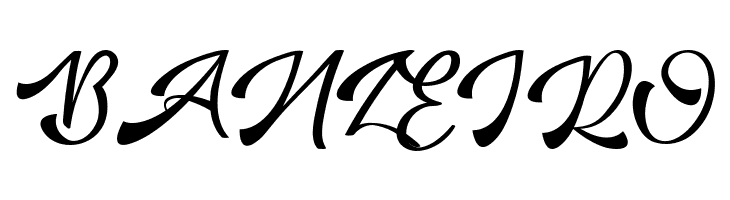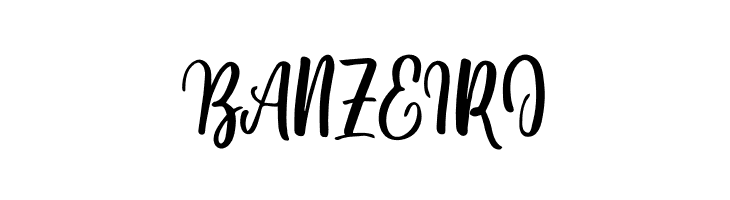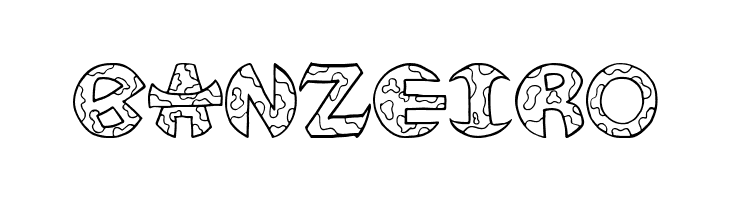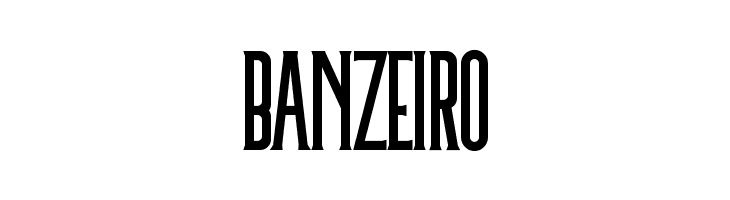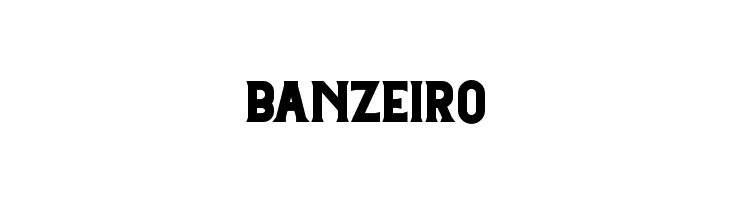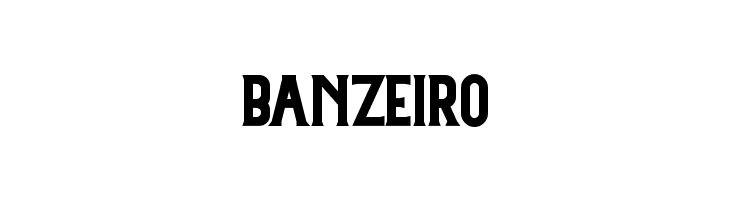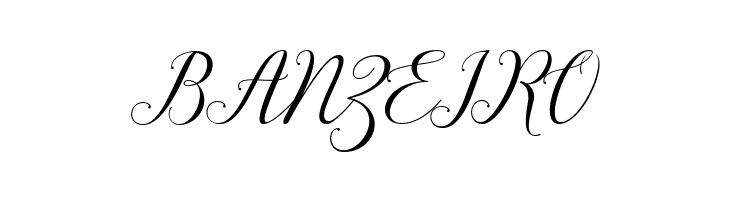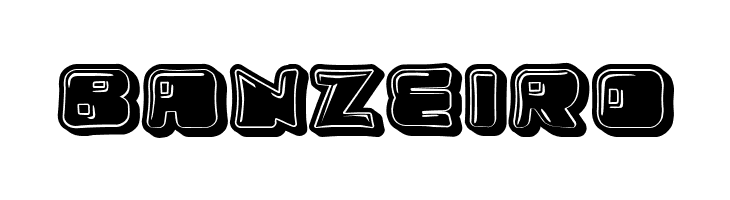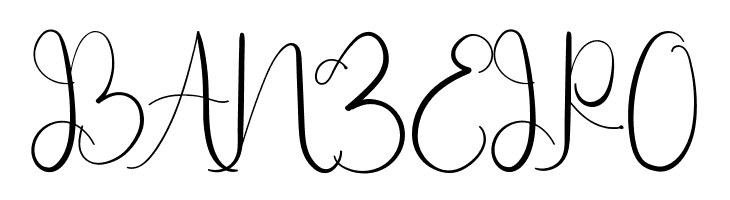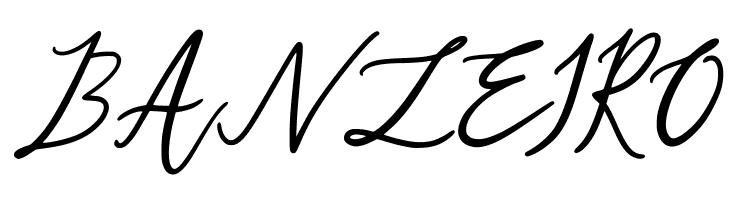
A dynamic handwritten font with fluid strokes and expressive style.
Bold and dynamic font with strong, impactful characters.
A tall, narrow, and bold font with a modern, sleek design.
A bold, thick-stroked font ideal for impactful headlines.
A lively, flowing script font with elegant curves and a handwritten style.
A bold, geometric font with a modern and assertive style.
A distressed, grungy font with a textured, artistic style.
The image lacks a valid font, displaying decorative elements instead.
A dripping, gothic-style font with a bold, artistic flair.
A bold, three-dimensional font with a block-like, embossed appearance.
A lively, cursive font with fluid strokes and a handwritten feel.
A bold, playful font with abstract, patterned interiors and thick outlines.
A bold, geometric font with strong, block-like characters.
A bold, brush-style font with a dynamic, hand-drawn aesthetic.
An ornate and elegant script font with flowing, interconnected letterforms.
A bold, graffiti-inspired font with dynamic, angular strokes.
A bold, decorative font with playful, artistic flourishes.
A modern, elegant font with high contrast and sharp, clean lines.
An ornate and decorative font with high contrast and intricate flourishes.
A classic serif font with elegant strokes and high contrast, perfect for formal use.
Casual handwritten script font.
Elegant cursive font with smooth, flowing strokes and a modern calligraphic style.
A playful, handwritten font with tall, narrow letterforms and a whimsical style.
Bold, blocky font with a shadow effect for a three-dimensional look.
A bold, distressed font with a vintage, grunge aesthetic.
An elegant script font with flowing, interconnected letters and graceful swashes.
A bold, rounded font with a modern and playful style.